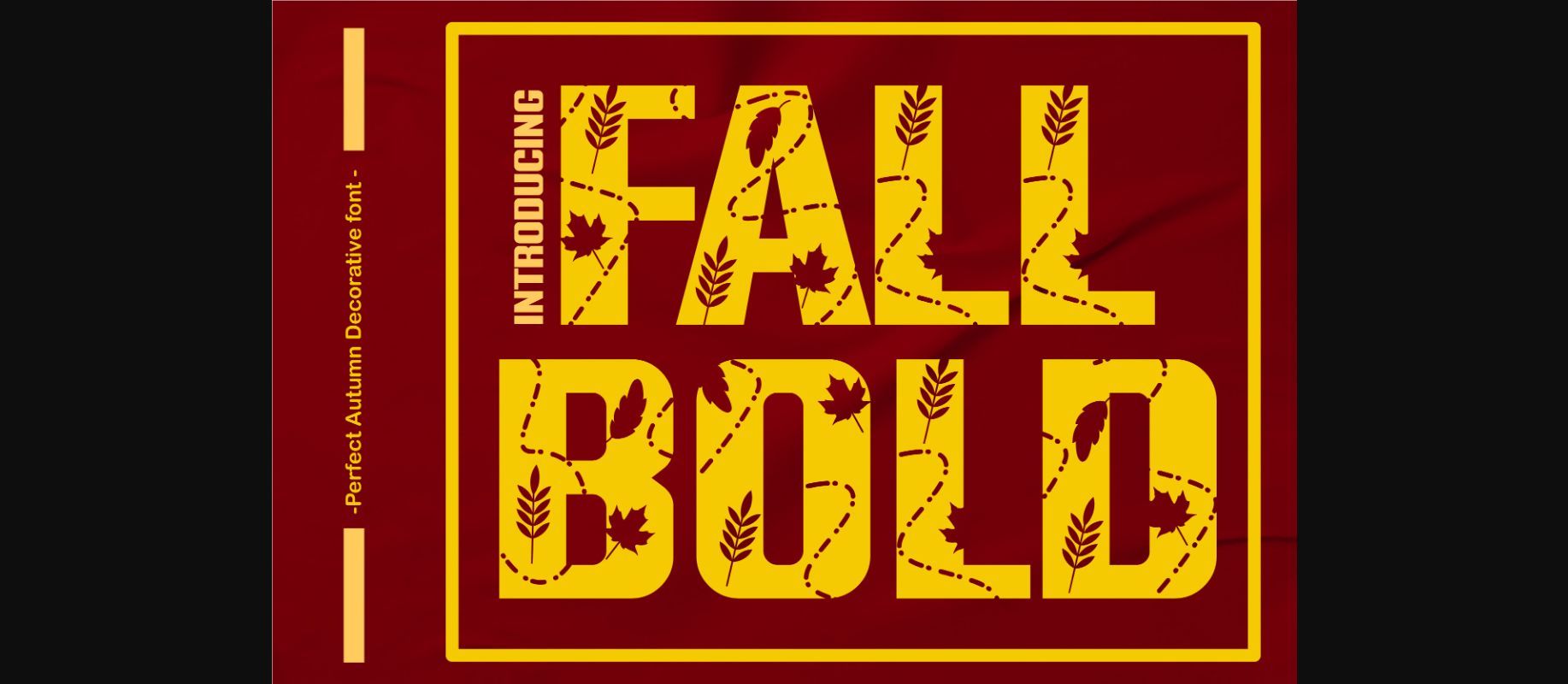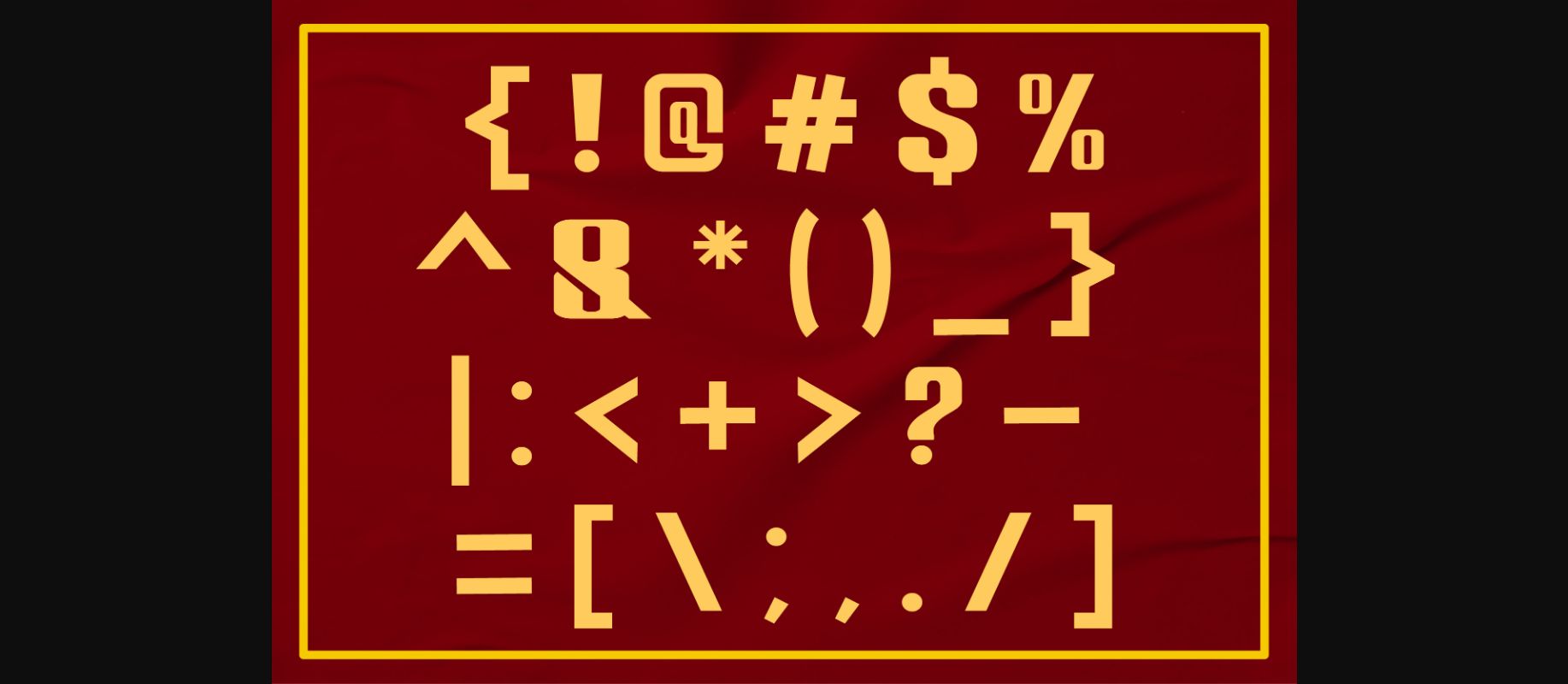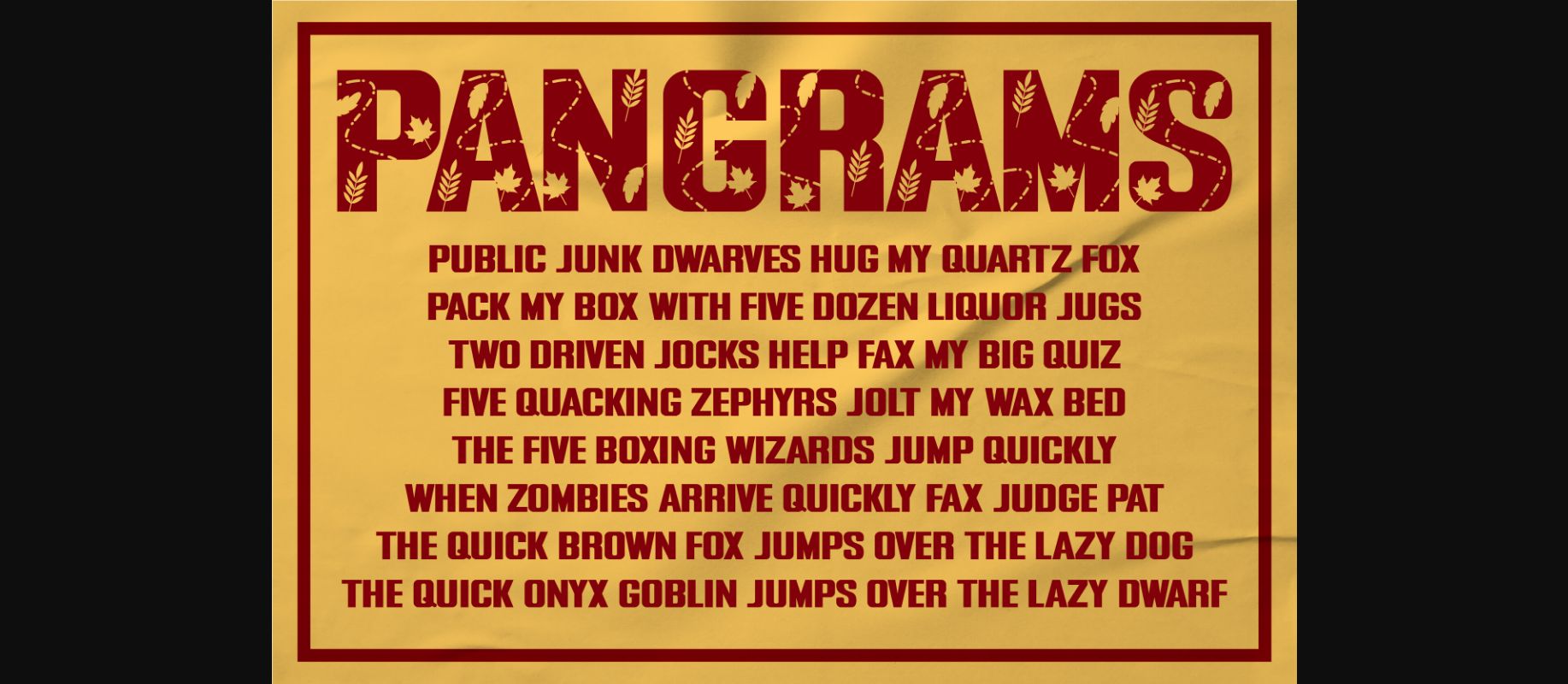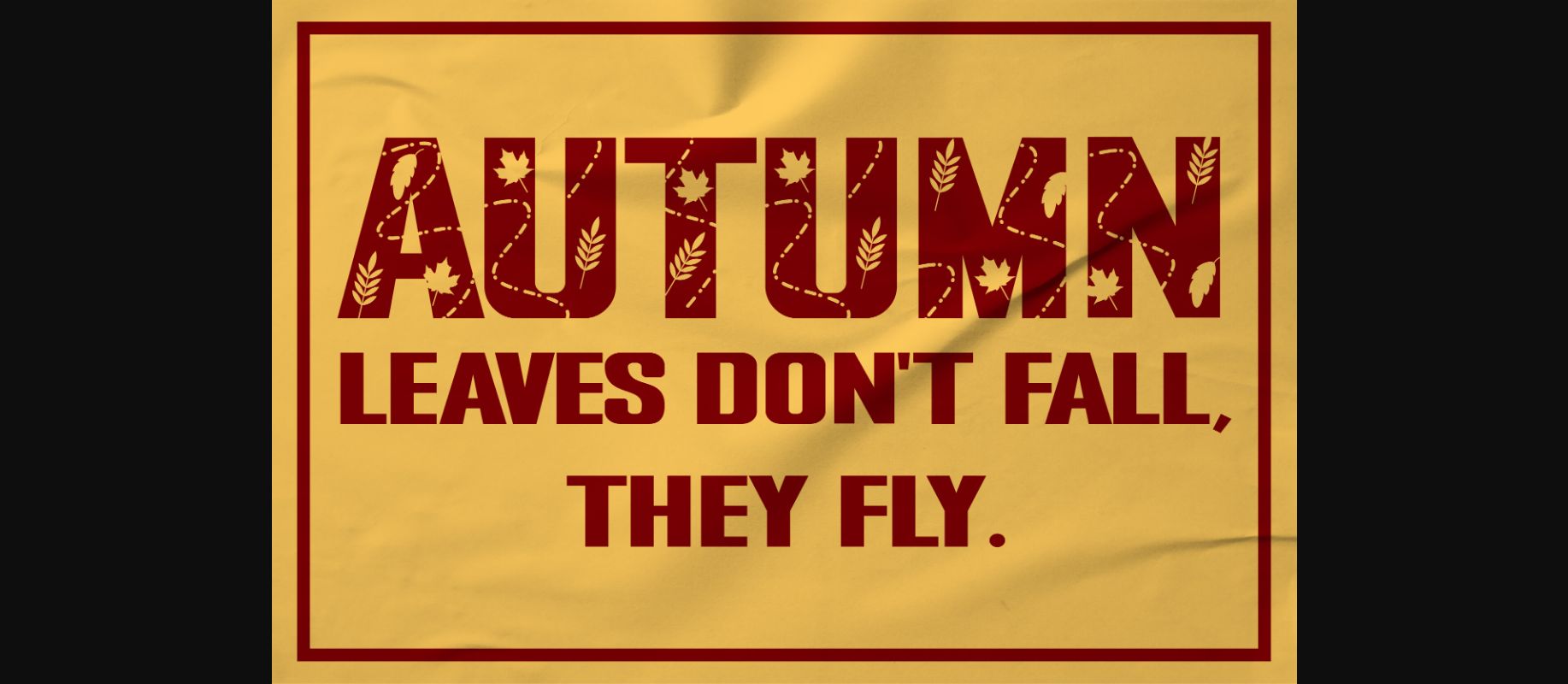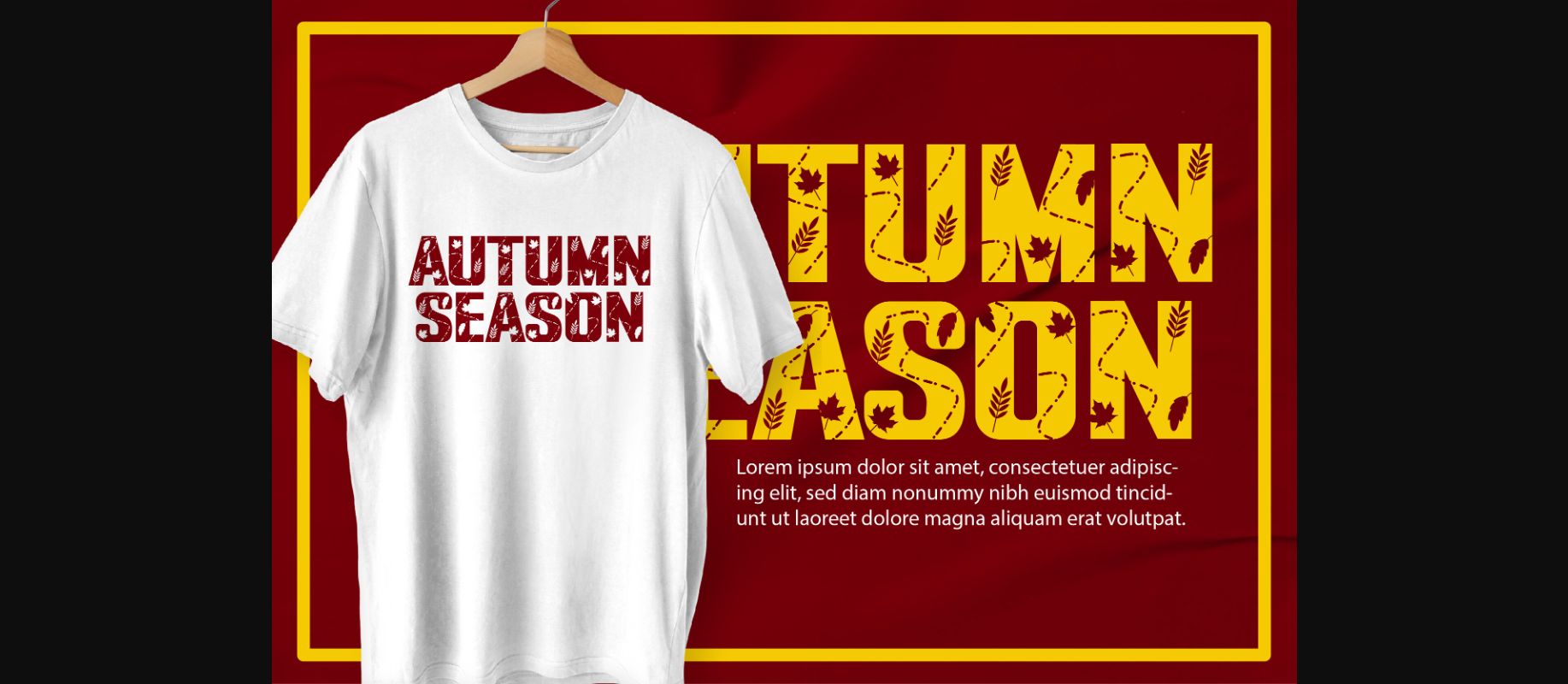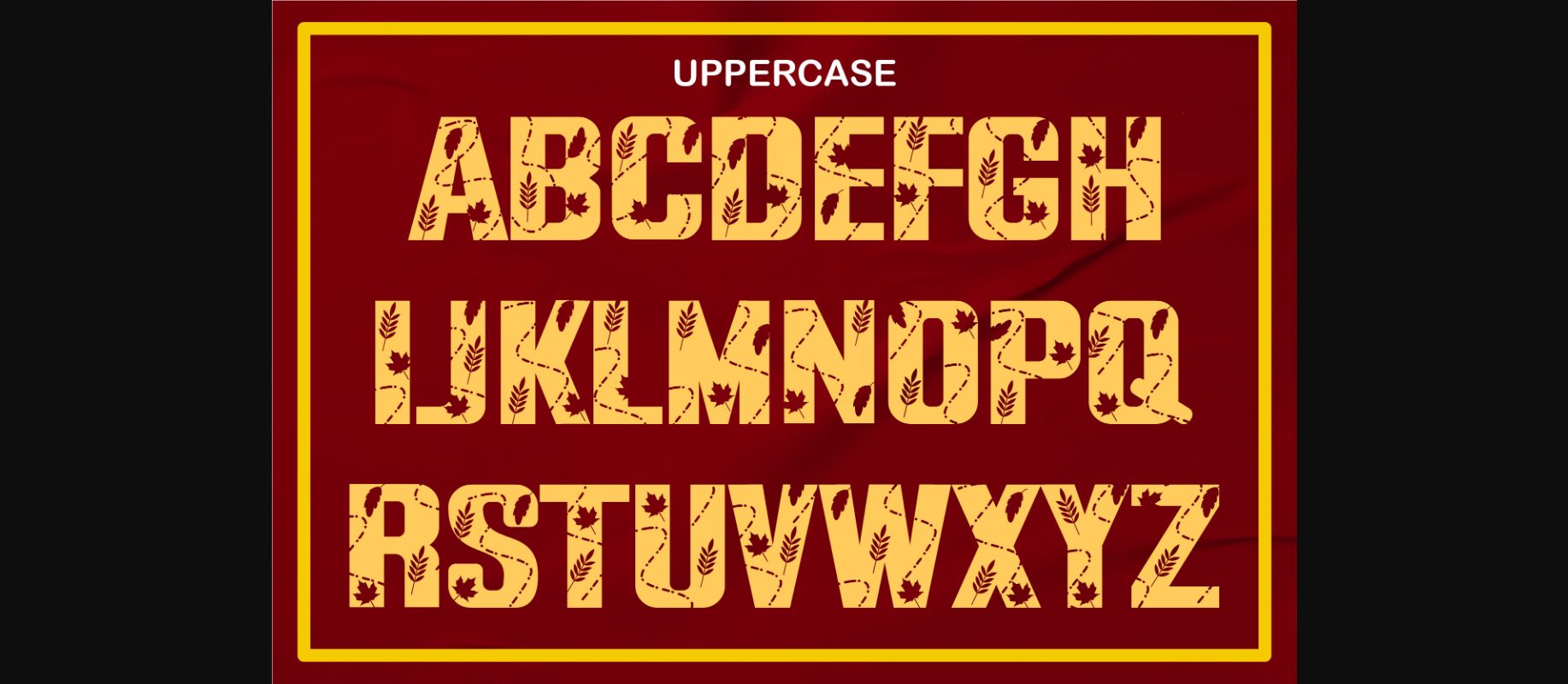
About Fall Bold Font
Fall Bold font is a delightful autumn-inspired typeface that captures the essence of the season. Each letter is adorned with cascading leaves, creating a charming and whimsical effect. Use Fall Bold to infuse your designs with the warmth and beauty of fall, making it perfect for invitations, banners, and seasonal creations that celebrate the splendor of autumn.